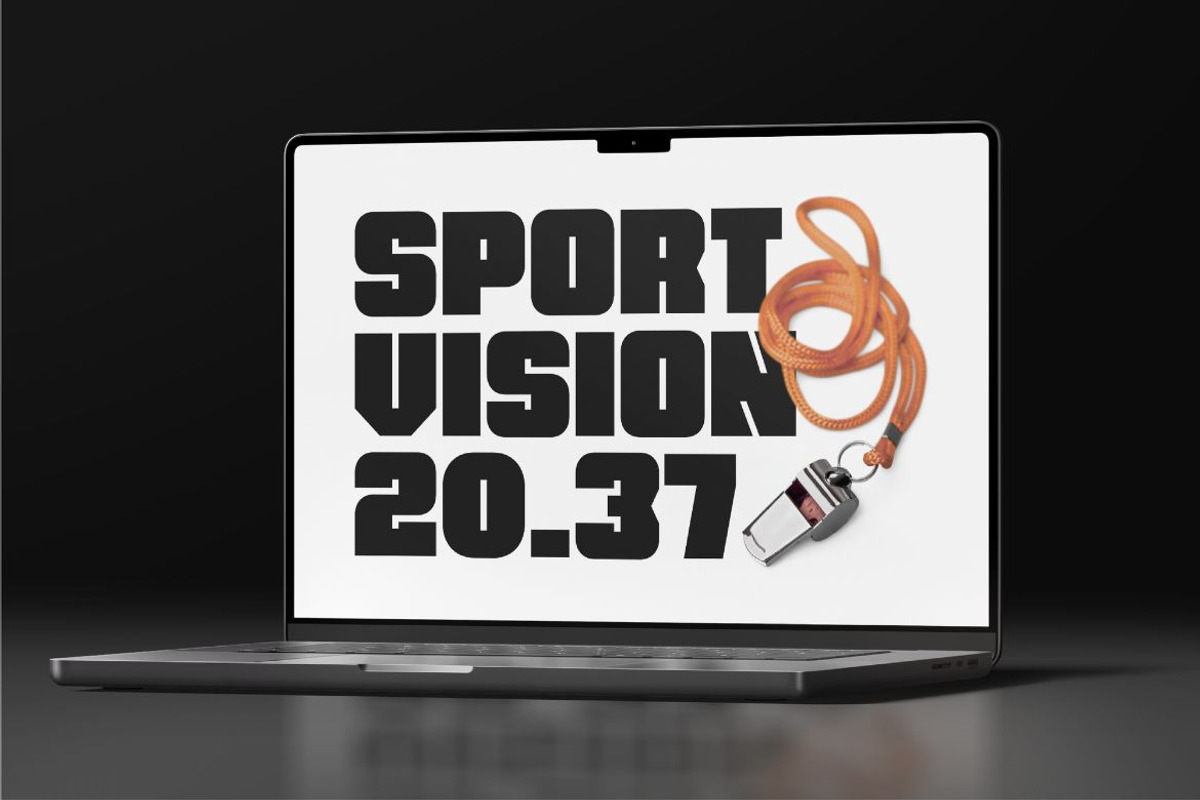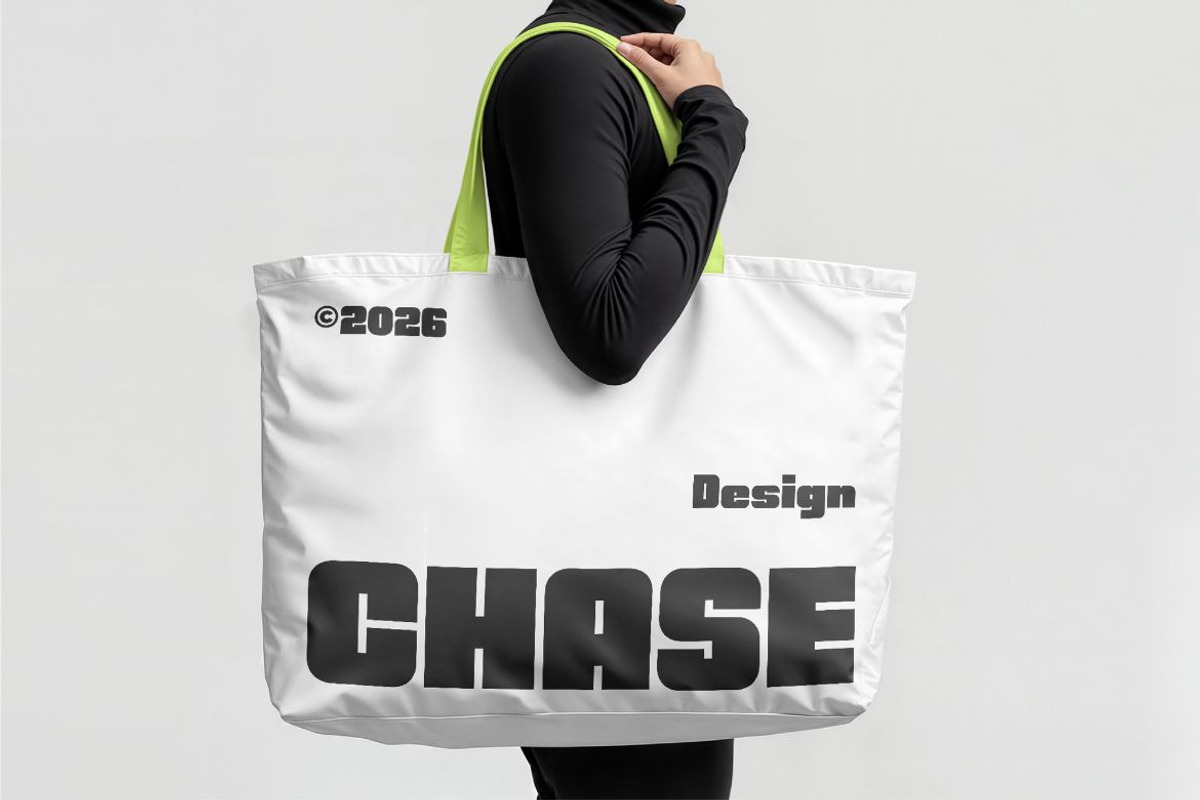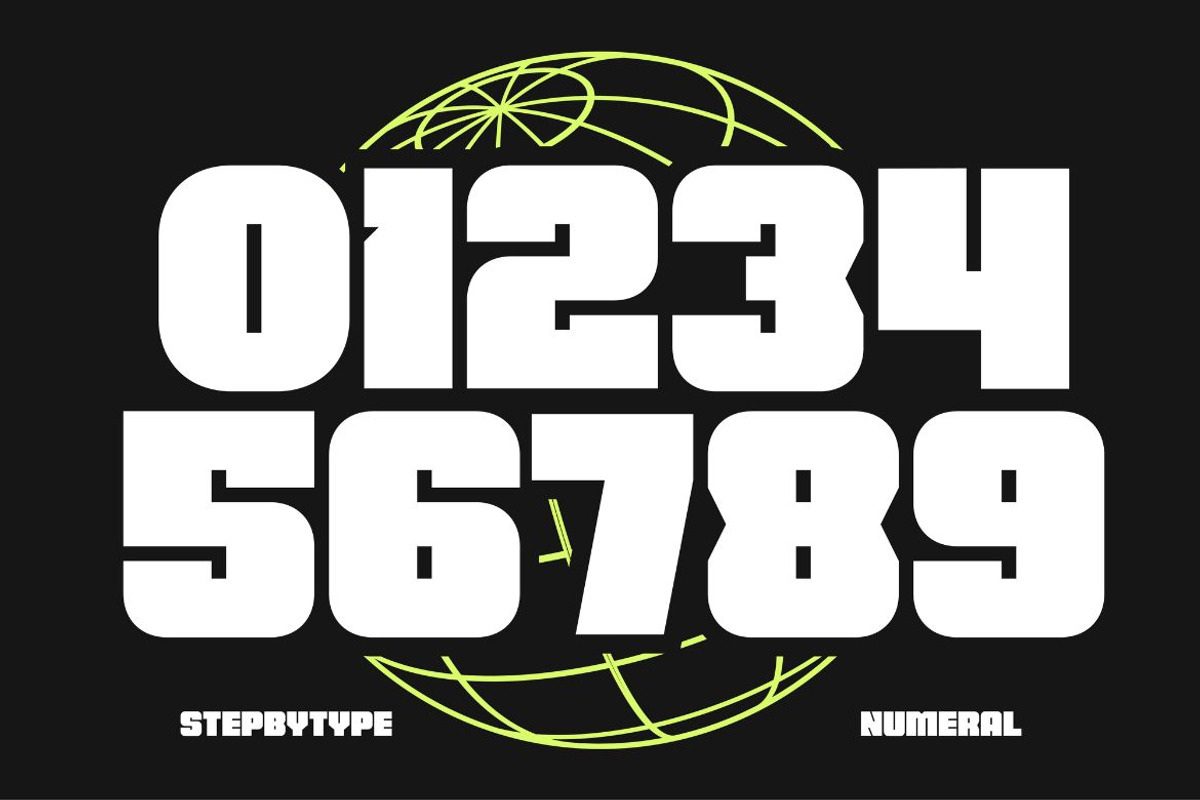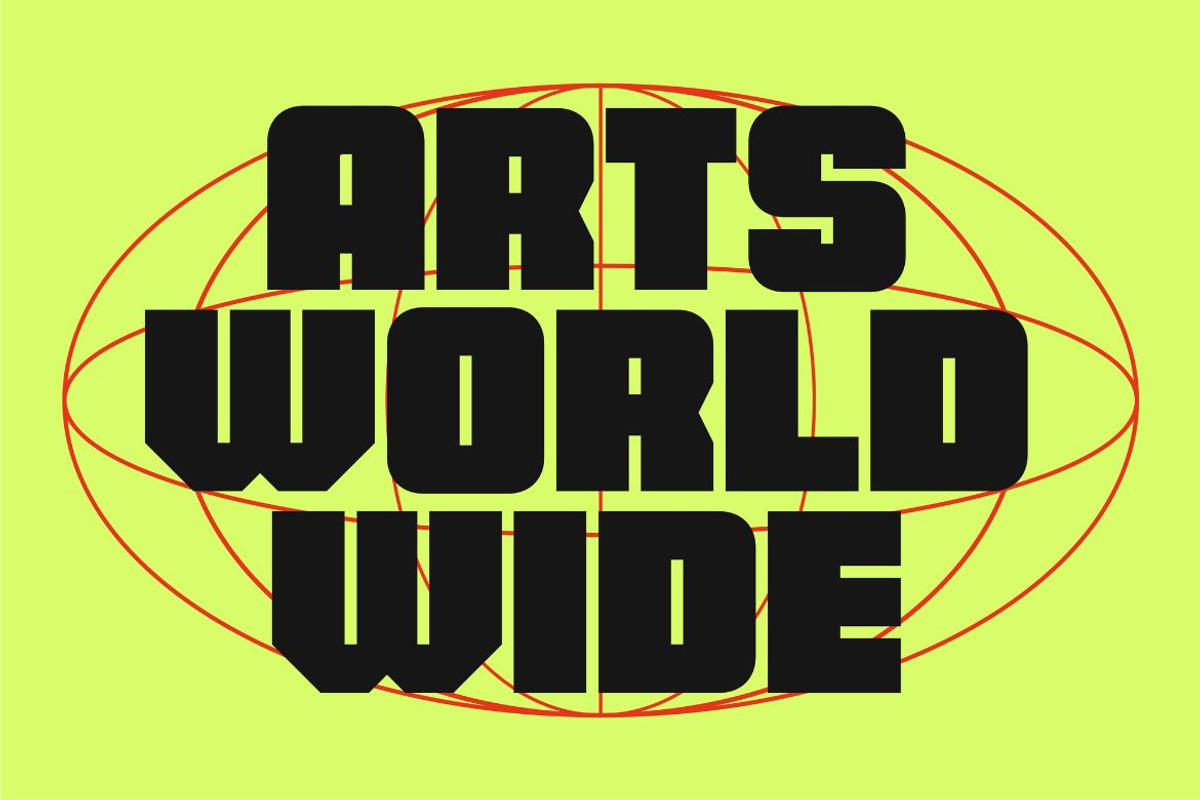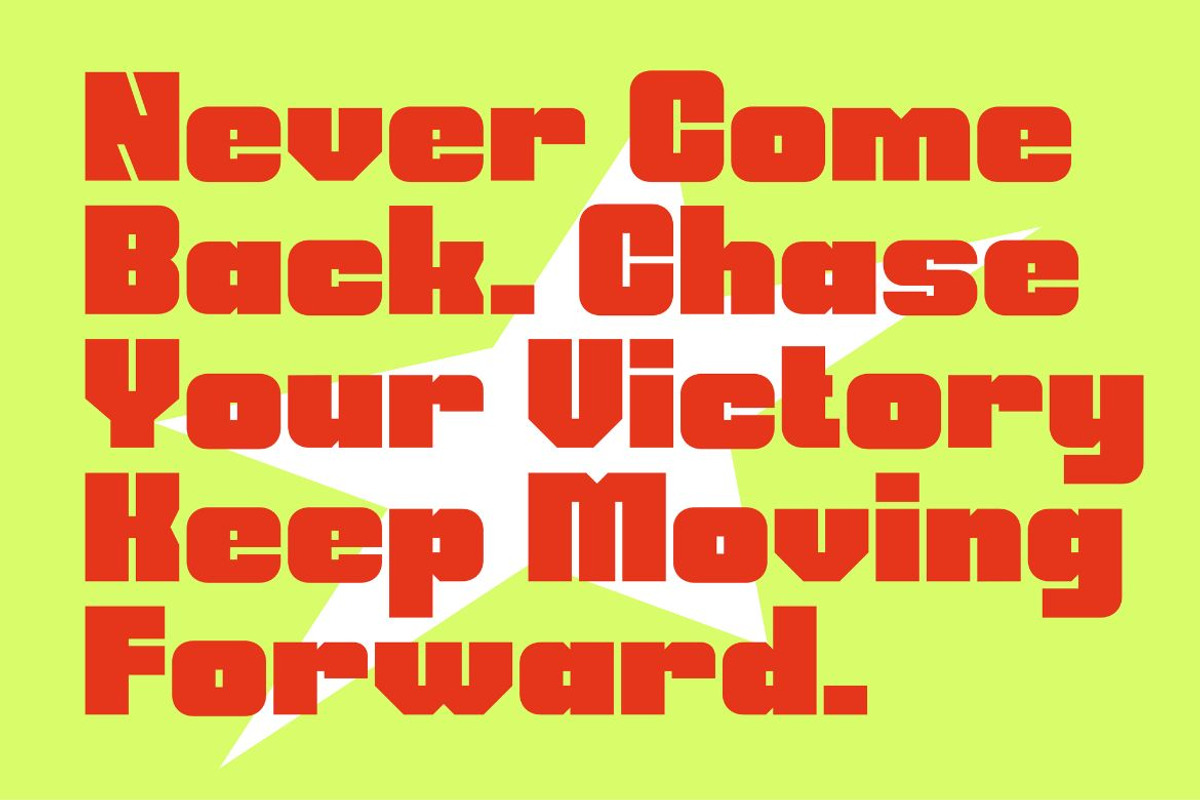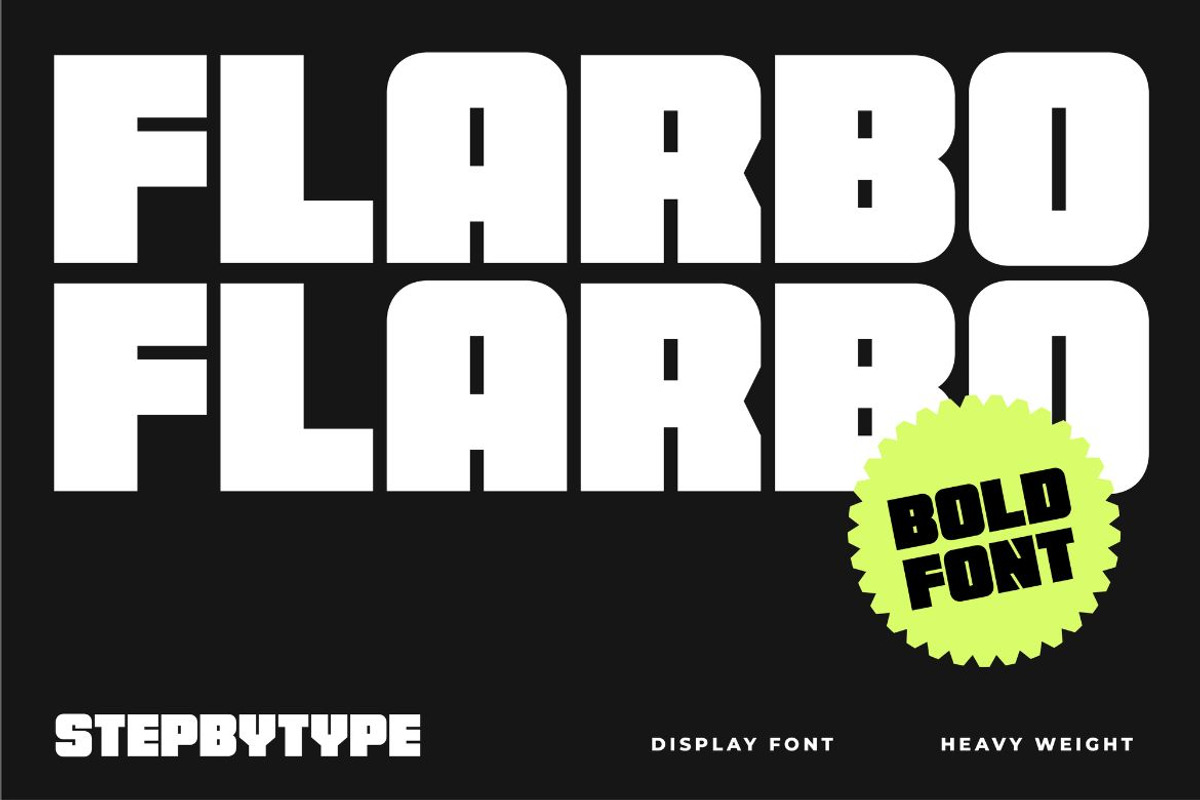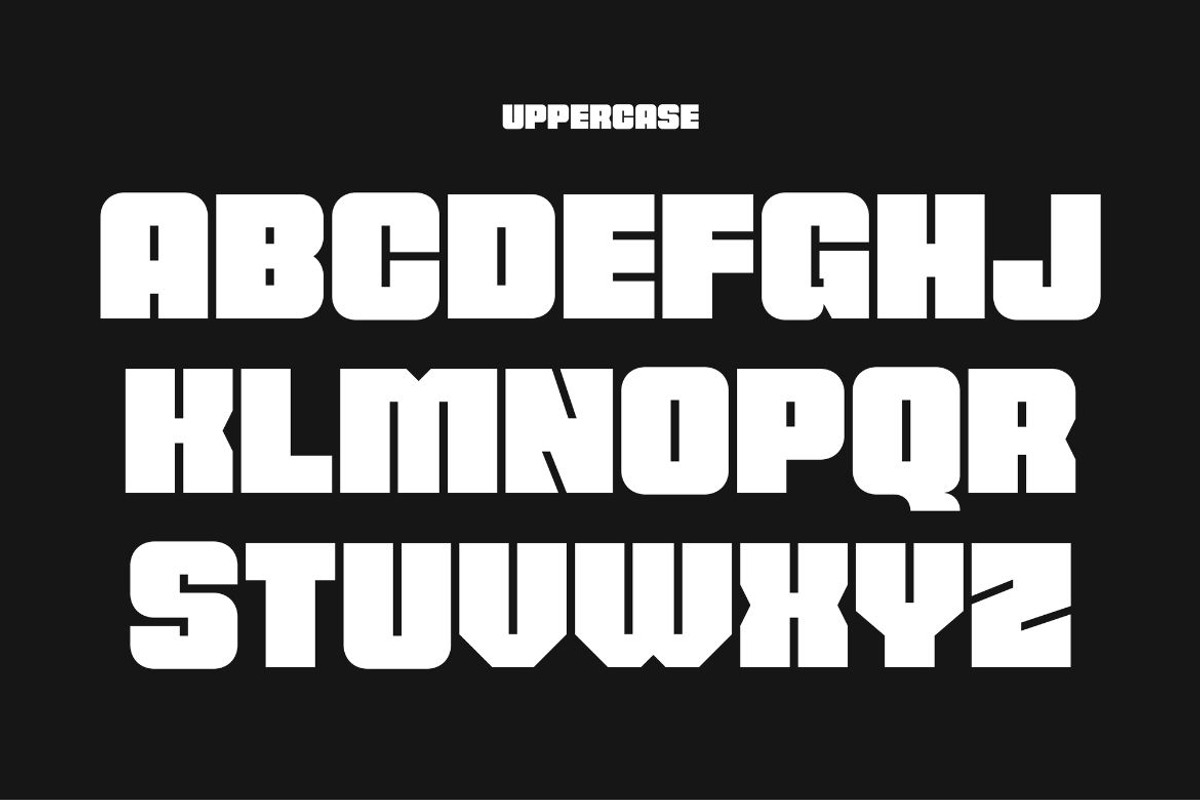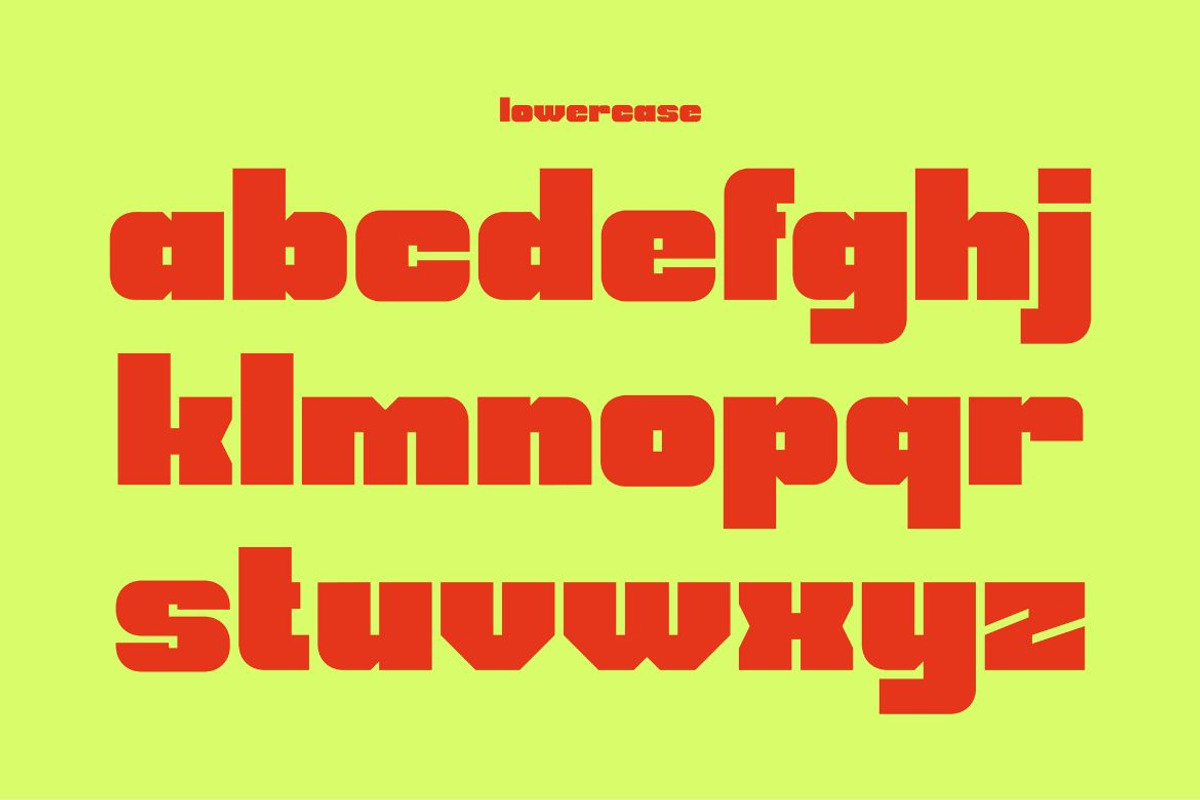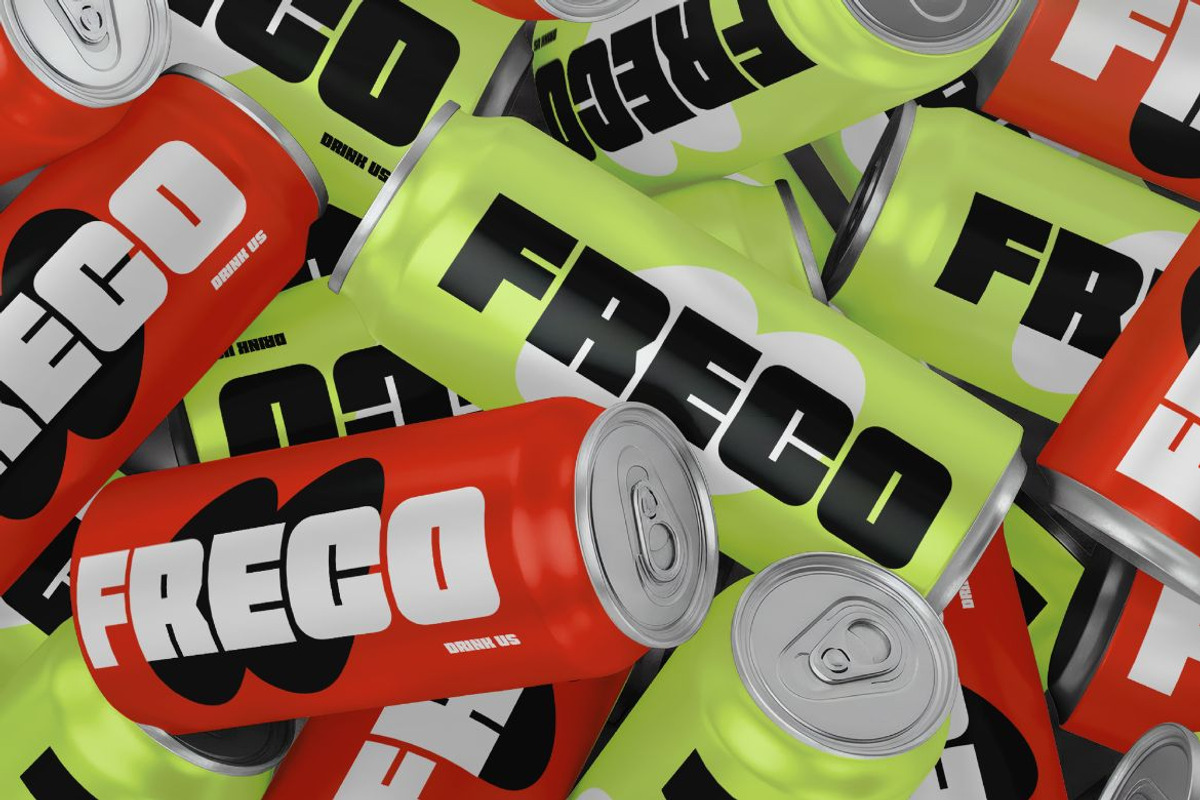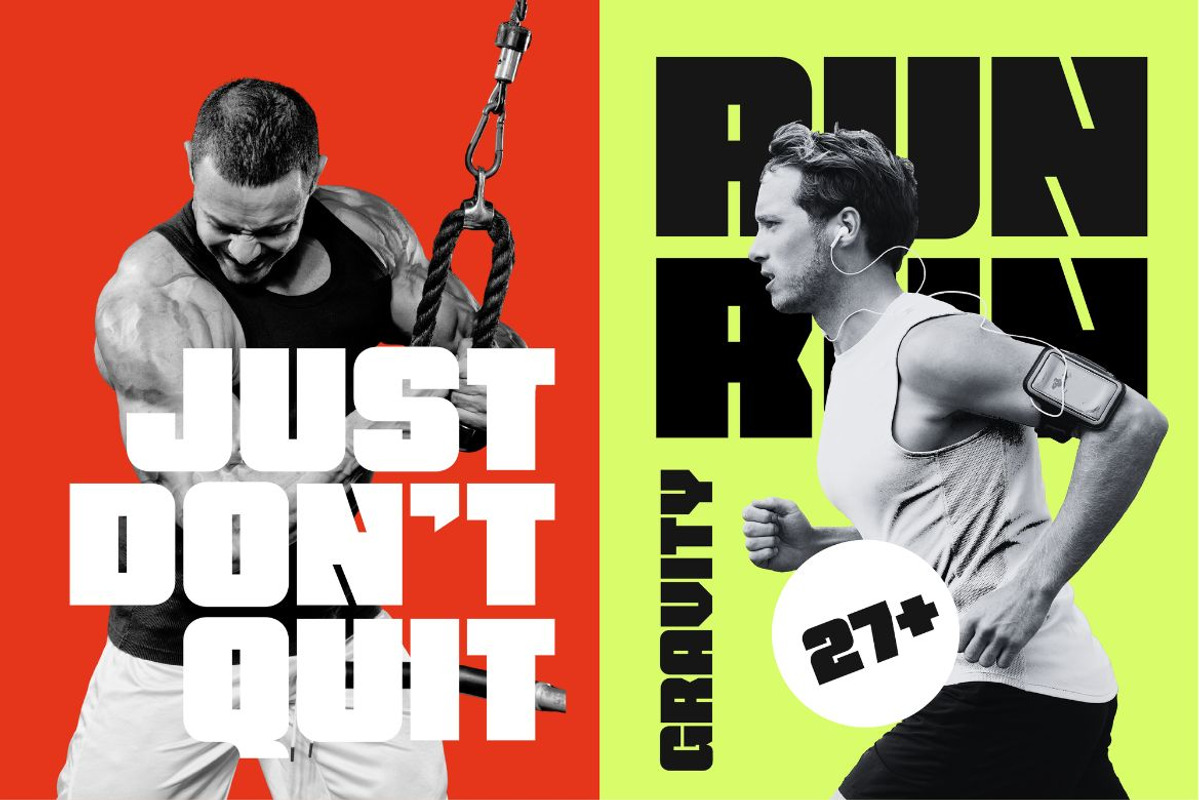
Flarbo
Flabo is a heavy display sans-serif typeface with a bold, blocky, and powerful visual character. The font uses large geometric shapes, thick strokes, and compact proportions to create a strong headline impact. Its structure feels inspired by sports typography, industrial lettering, and modern streetwear aesthetics.
The extremely heavy weight makes it ideal for designs that require a strong visual statement and high readability from a distance.